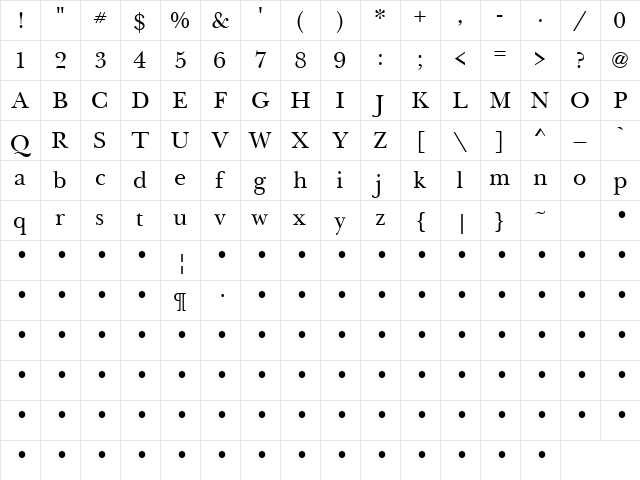
QTBasker Regular
QTBasker Family
Design Context for QTBasker
QTBasker is a composed and adaptable typeface that performs quietly and consistently across a wide range of design contexts.
Pro Tip: Use QTBasker in both headline and body roles to test its range before committing to a single application.